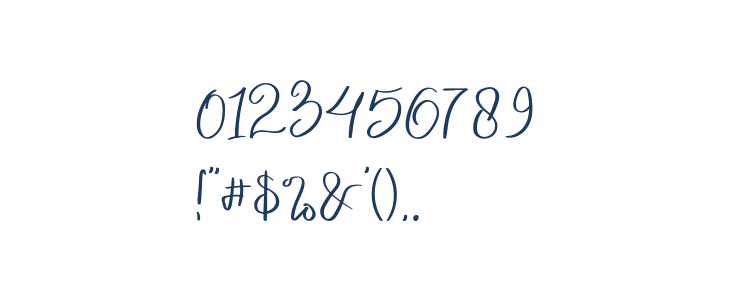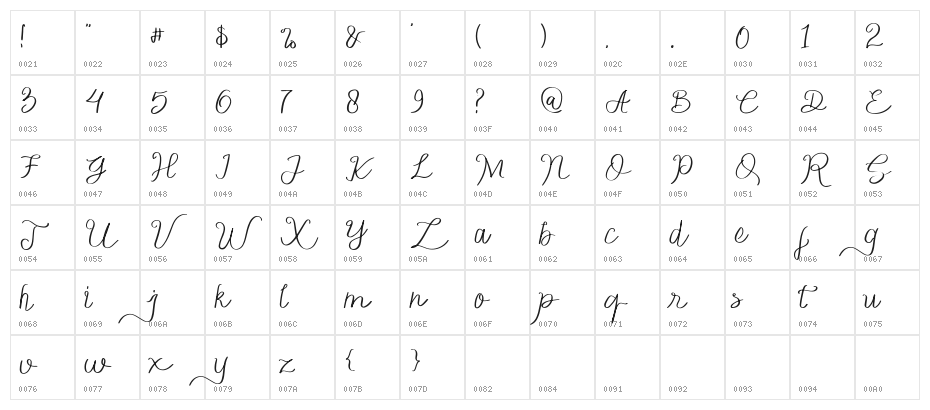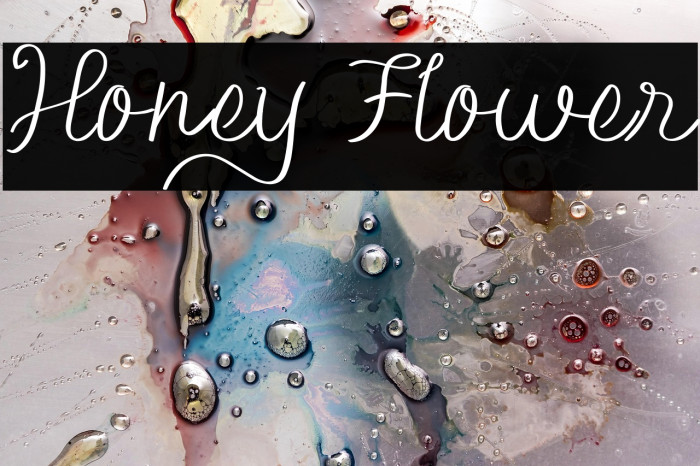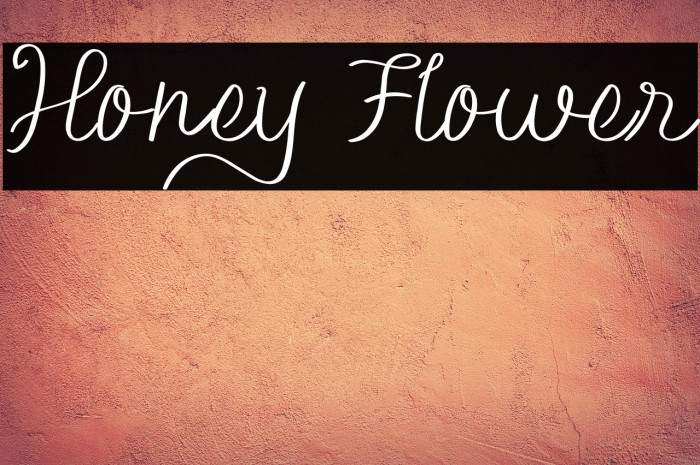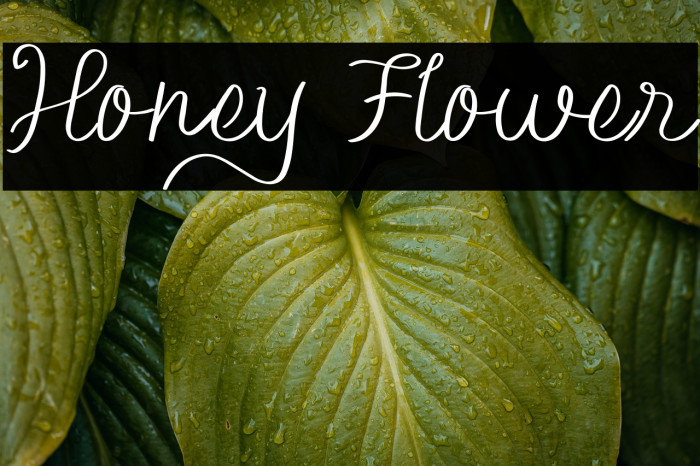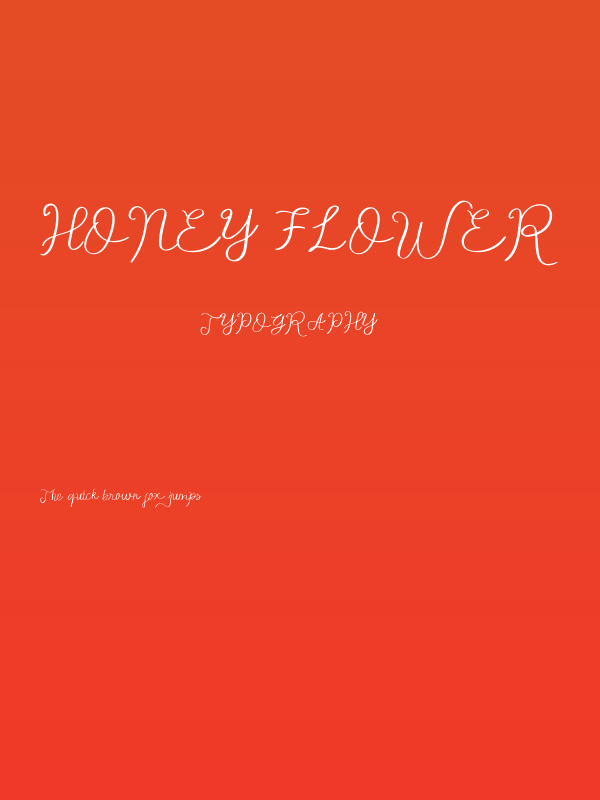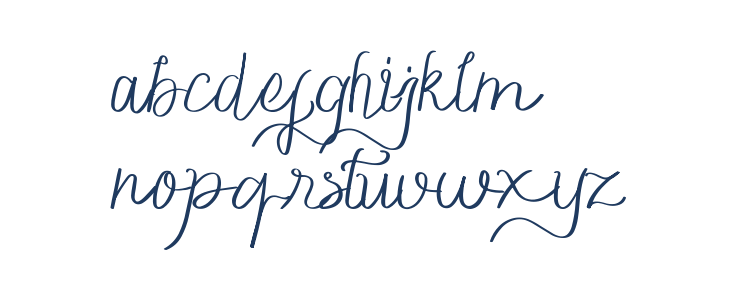
Honey Flower Font
Honey Flower Description
This font features an elegant and flowing script style, characterized by its smooth, cursive strokes and graceful curves. The uppercase letters exhibit a refined and sophisticated appearance, with each character seamlessly connecting to the next. The lowercase letters maintain a consistent flow, enhancing the font's overall harmony and readability. The numerals are distinct and stylish, complementing the script's aesthetic. Special characters are thoughtfully designed, maintaining the font's cohesive look. This font exudes a sense of elegance and charm, making it ideal for projects that require a touch of sophistication.
| Proposed Projects | Ideal for wedding invitations, elegant branding, greeting cards, and upscale packaging. |